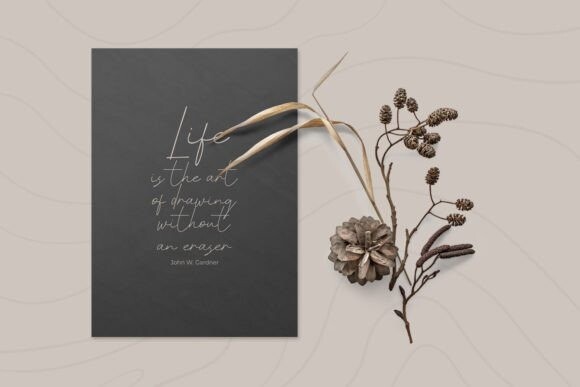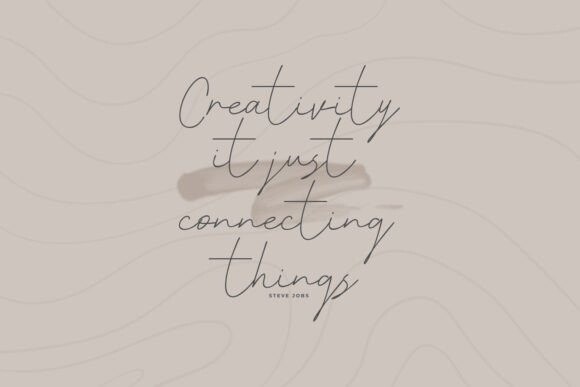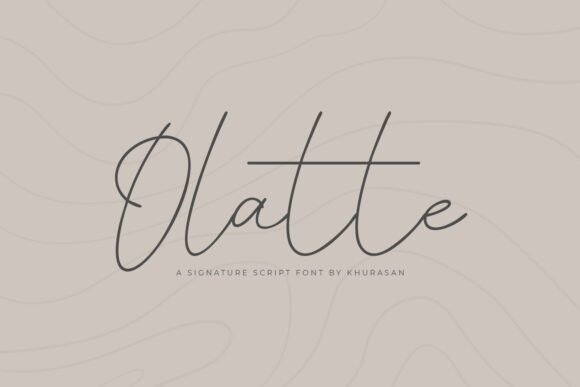
Olatte Font
Olatte Font is a beautiful light handwritten typeface with a unique feel and a stunning impact. Olatte is a clean, stylish, modern, and elegant script font perfect for posters, logos, magazines, book covers, banners, and many more! Get this amazing font, and use it to create lovely designs. It can easily be matched to an incredibly large set of projects, so add it to your creative ideas and notice how it makes them stand out!